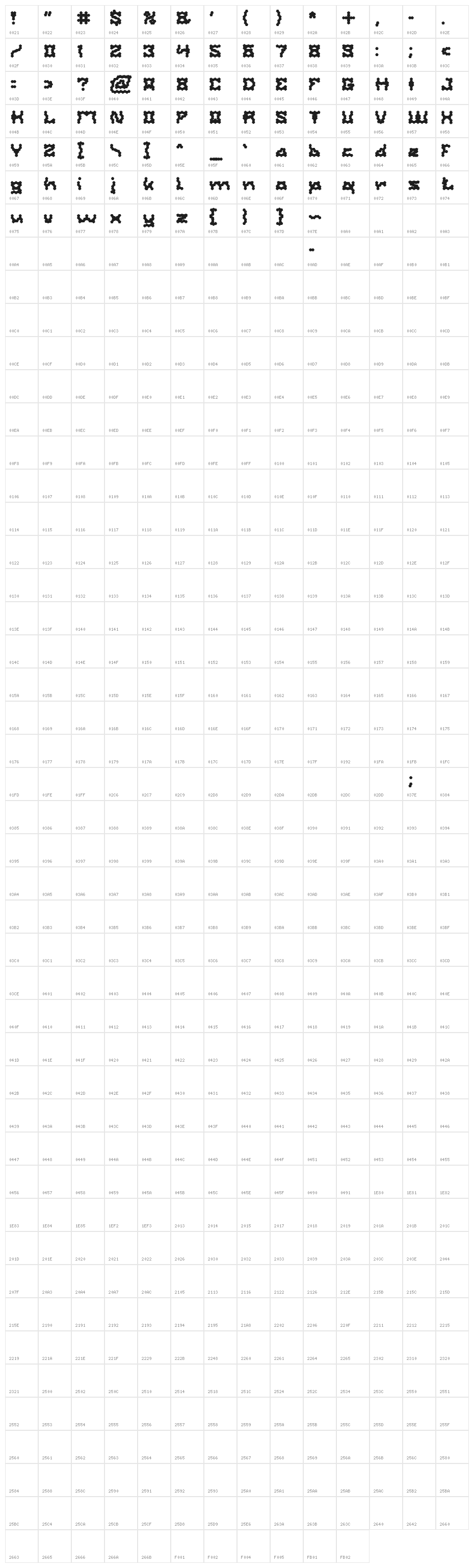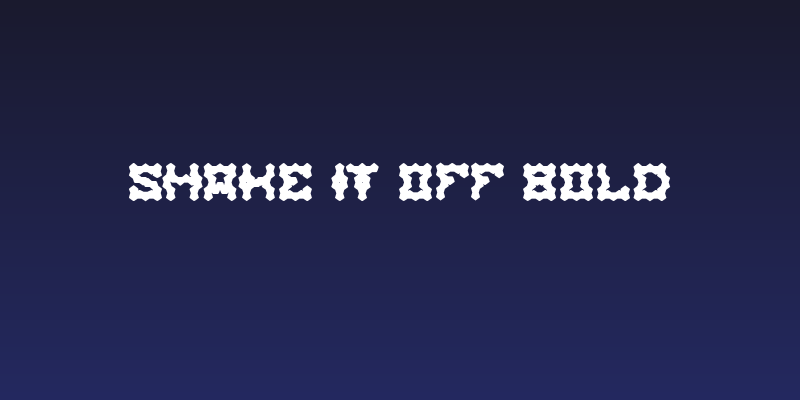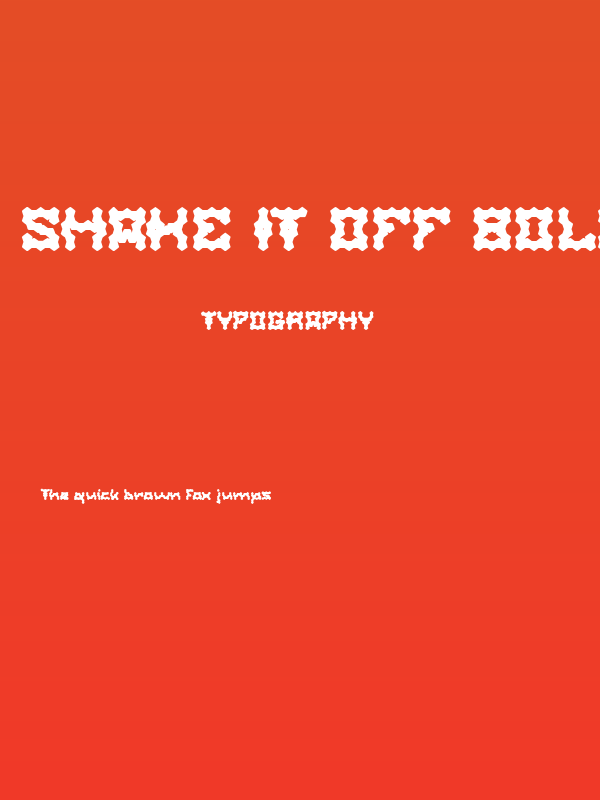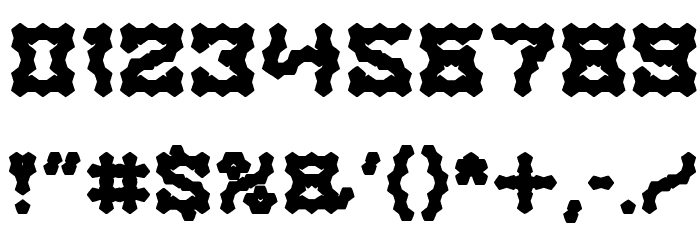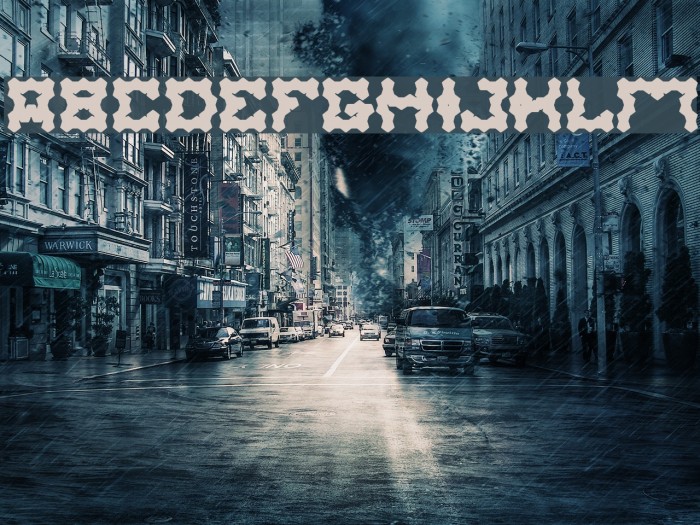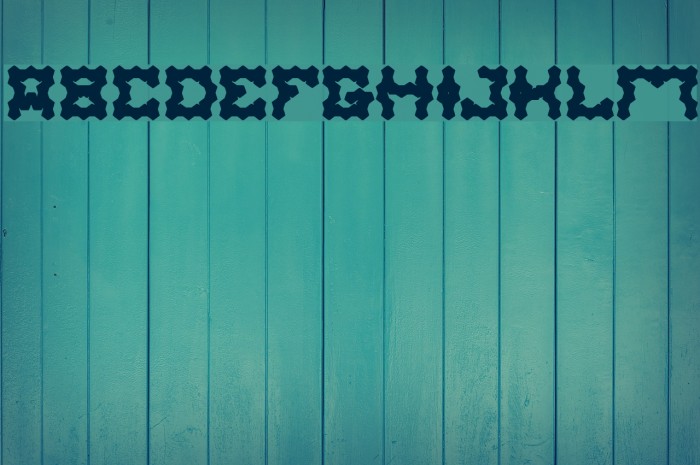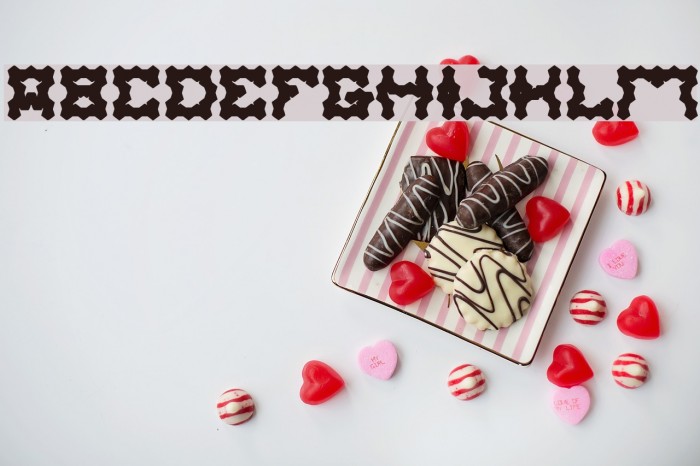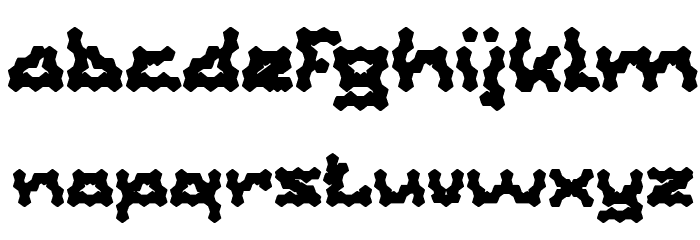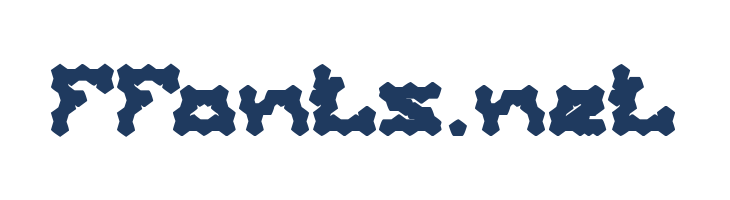
Shake It Off Bold Font
Shake It Off Bold Description
This font features a bold, jagged design with a playful and energetic appearance. The characters are uniquely shaped with irregular edges, giving them a dynamic and slightly chaotic look. The uppercase and lowercase letters maintain a consistent style, with the lowercase being slightly more compact. Numbers and special characters follow the same design principles, ensuring uniformity across all glyphs. The font's distinctive style makes it stand out, suitable for creative and unconventional projects.